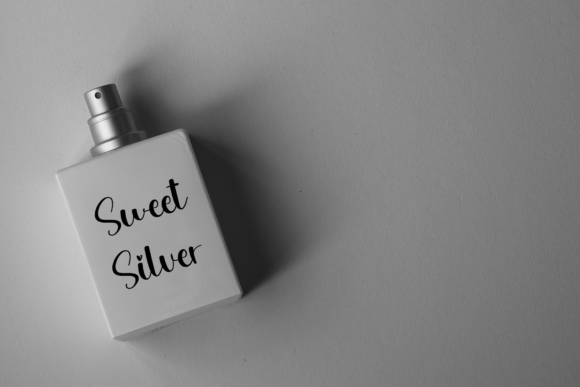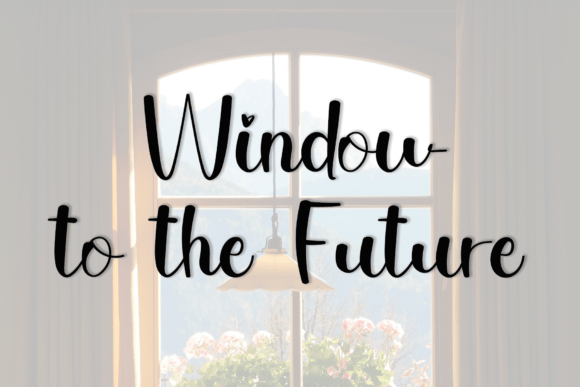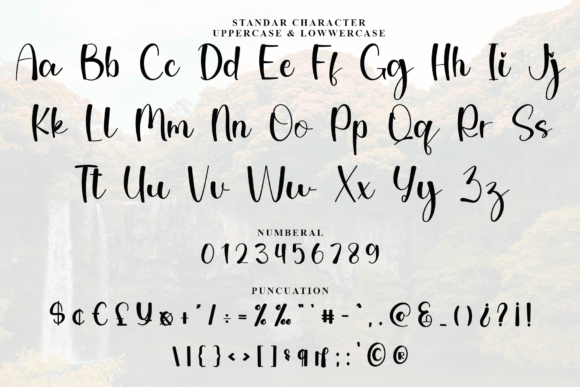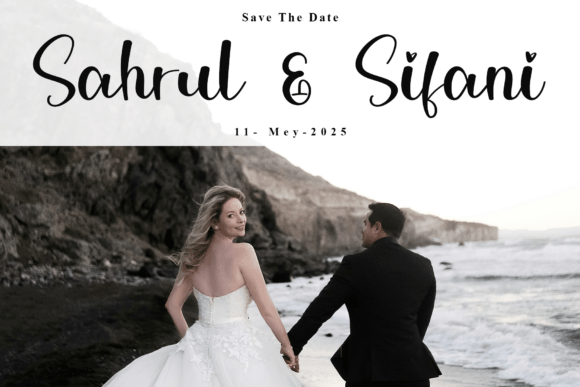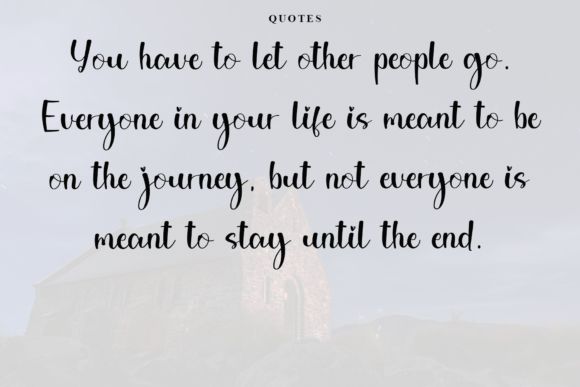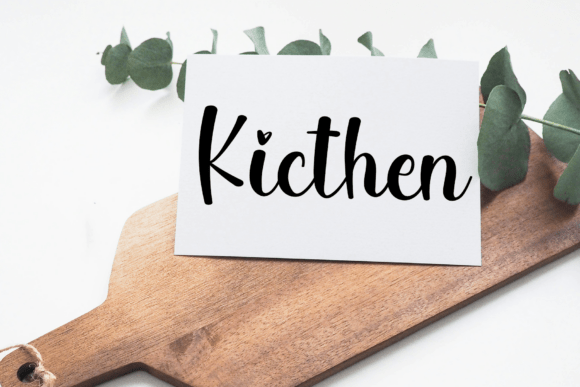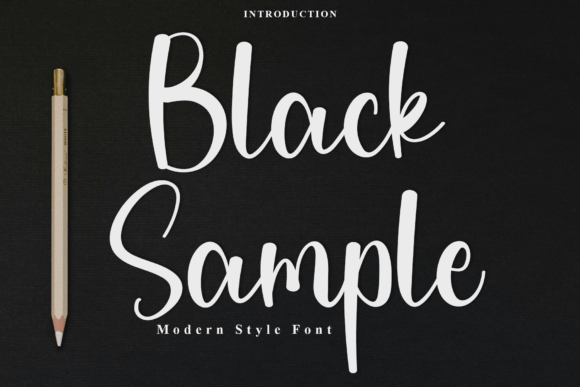
Discover the Charm of Black Sample Font: Elevate Your Designs with Fresh Elegance
In the world of typography, fonts play a crucial role in conveying the tone and personality of a design. For designers and crafters seeking a script font that embodies freshness and casual elegance, Black Sample Font is an excellent choice. This charming font is designed to add a touch of warmth and personality to various design projects, making it perfect for those who want to create visually appealing and engaging content.
The Unique Characteristics of Black Sample Font
Black Sample Font is a script font that boasts fluid strokes and organic lines, giving it a laid-back vibe that’s hard to resist. Its unique characteristics make it an ideal choice for designers who want to add a personal touch to their work. The font’s casual elegance is perfect for creating designs that are both sophisticated and approachable.
Versatility at Its Best: Use Cases for Black Sample Font
One of the standout features of Black Sample Font is its versatility. This font can be used for a wide range of design projects, including:
- Branding: Create a lasting impression with Black Sample Font, perfect for logos, business cards, and other marketing materials.
- Invitations: Add a touch of elegance and sophistication to your invitations, whether it’s for a wedding, birthday party, or baby shower.
- Social Media Graphics: Elevate your social media presence with eye-catching graphics that showcase your brand’s personality.
Why Designers and Crafters Love Black Sample Font
So, what makes Black Sample Font a favorite among designers and crafters? Here are just a few reasons:
- Easy to Read: Despite its elegant and cursive nature, Black Sample Font is surprisingly easy to read, making it perfect for body text and headings.
- Highly Versatile: Use Black Sample Font for both digital and print projects, from social media graphics to brochures and flyers.
- Unique Personality: This font adds a touch of warmth and personality to any design, making it perfect for brands that want to stand out from the crowd.
Tips for Using Black Sample Font Effectively
To get the most out of Black Sample Font, here are a few tips to keep in mind:
- Pair it with Other Fonts: Experiment with pairing Black Sample Font with other fonts to create a unique and visually appealing typography.
- Play with Colors: Don’t be afraid to experiment with different colors and textures to add depth and interest to your design.
- Use it Sparingly: While Black Sample Font is beautiful, it can be overwhelming if used excessively. Use it sparingly to create a lasting impression.
Black Sample Font is a charming script font that’s perfect for designers and crafters seeking to add a touch of freshness and casual elegance to their designs. With its fluid strokes, organic lines, and laid-back vibe, this font is sure to elevate your design projects and leave a lasting impression. Whether used for branding, invitations, or social media graphics, Black Sample Font is an excellent choice for anyone looking to add a personal touch to their work.